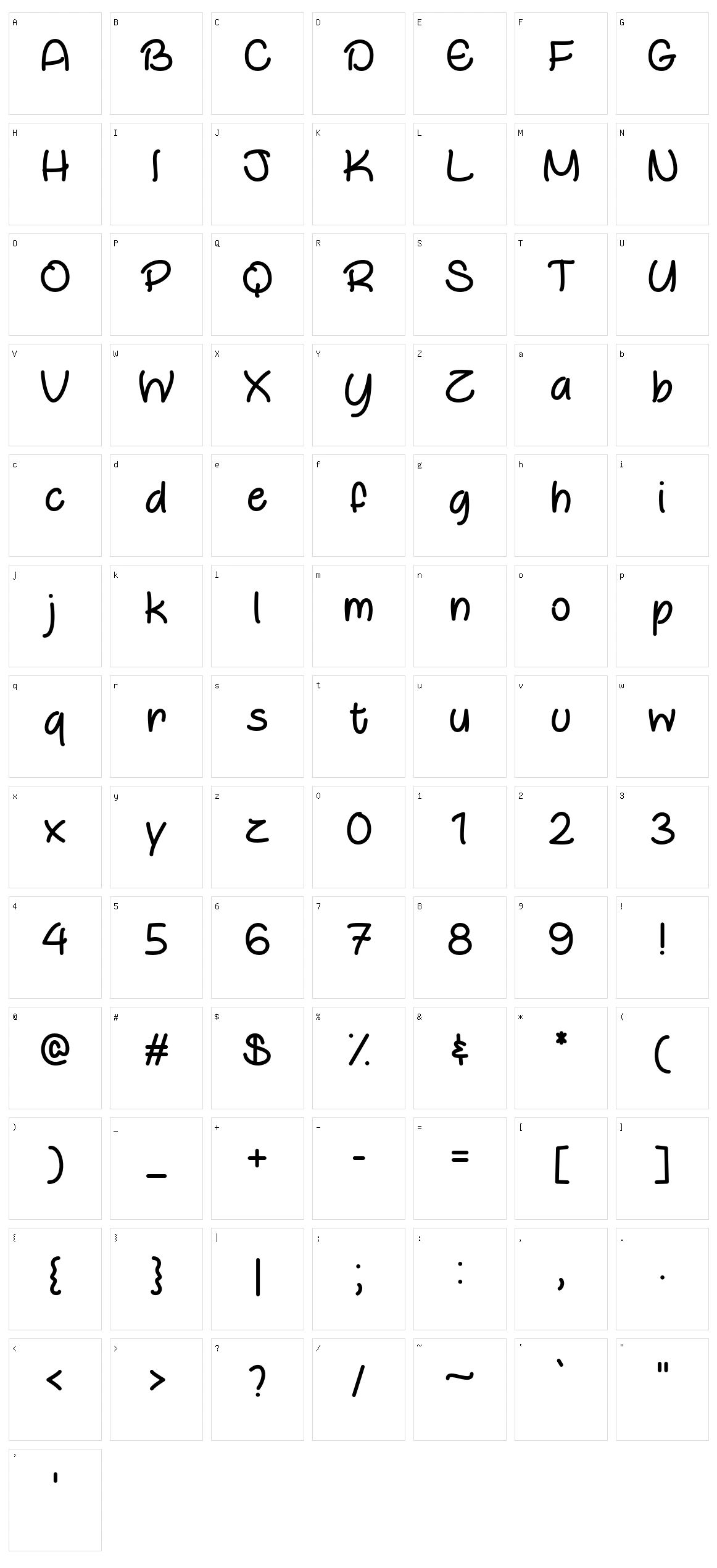
The free font Otterly Adorable is carefully designed by Misti's Fonts, showcasing a thoughtful balance of creativity and usability and falls under the Script font style. When you download the ZIP file, it contains only 64 KB of font files, making it lightweight and quick to download. Please review the license details below to understand permitted usage and distribution rights. If license information is not available, we recommend using this font for personal projects only or contacting the author directly for commercial usage permissions.